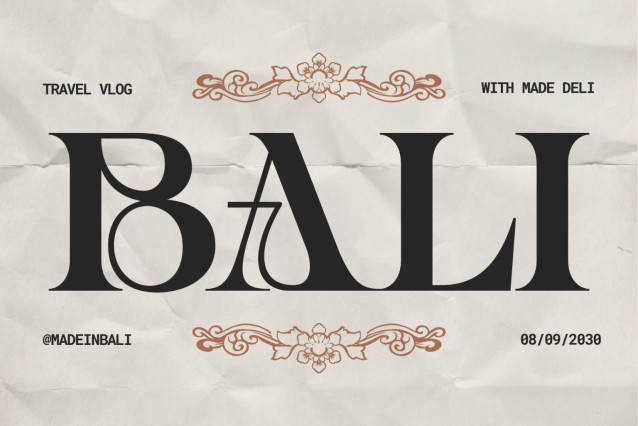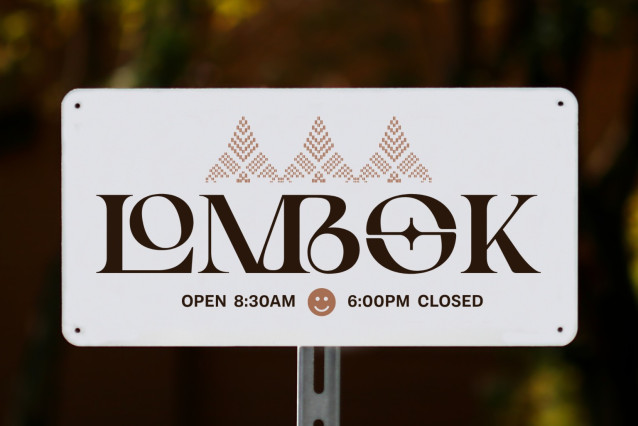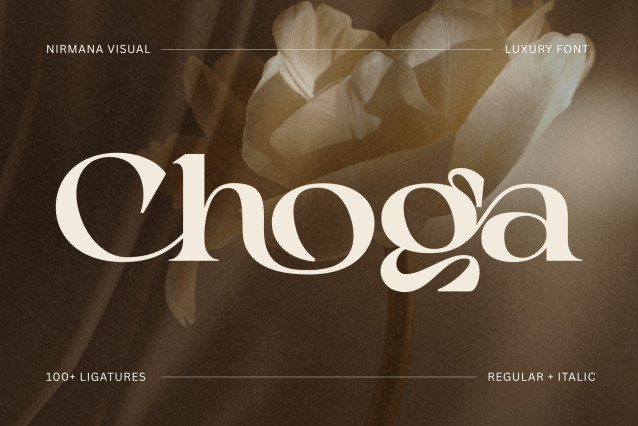
Choga Font
Choga Font – Timeless typographic style made to elevate logos, marketing visuals, digital content, and stylish print projects. Choga offers beautiful typographic harmony for a diversity of design projects, including logos & branding, social media posts, advertisements & product designs.